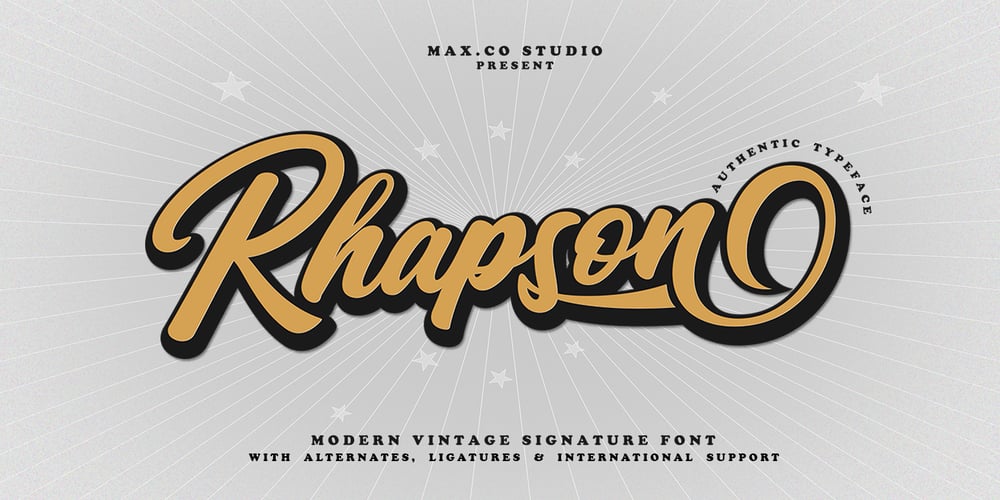
Rhapson Script Font Family was designed by Teuku Rinaldi Novianda and published by Max.co Studio. Rhapson Script contains 3 styles and family package options. Rhapson Script is a soft, bold, elegant & fun vintage script font. Can be used for various purposes such as logos, wedding invitation, t-shirt, letterhead, signage, news, posters, badges etc. Rhapson Script features 472 glyphs and 196 alternate characters, ligatures, swash and multiple language support. To enable the OpenType Stylistic alternates, you need a program that supports OpenType features such as Adobe Illustrator CS, Adobe Indesign & CorelDraw X6-X7. How to get access alternate glyphs from open type fonts: http://youtu.be/iptSFA7feQ0 There are additional ways to access alternates/swashes, using Character Map (Windows), Nexus Font (Windows), Font Book (Mac) or a software program such as PopChar (for Windows and Mac). How to access all alternative characters, using Windows Character Map with Photoshop: https://www.youtube.com/watch?v=Go9vacoYmBw Need help? If you need help or advice, please contact me by e-mail: maximal.fonts@gmail.com Thank you!